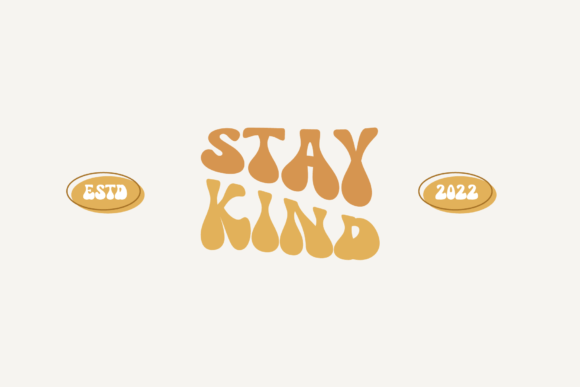
Magic Bloom Font
This is a lovely and playful groovy display font – you can feel it in every curve of its letters. Magic Bloom will bring all the good and funky vibes to any design you wish to add it to.